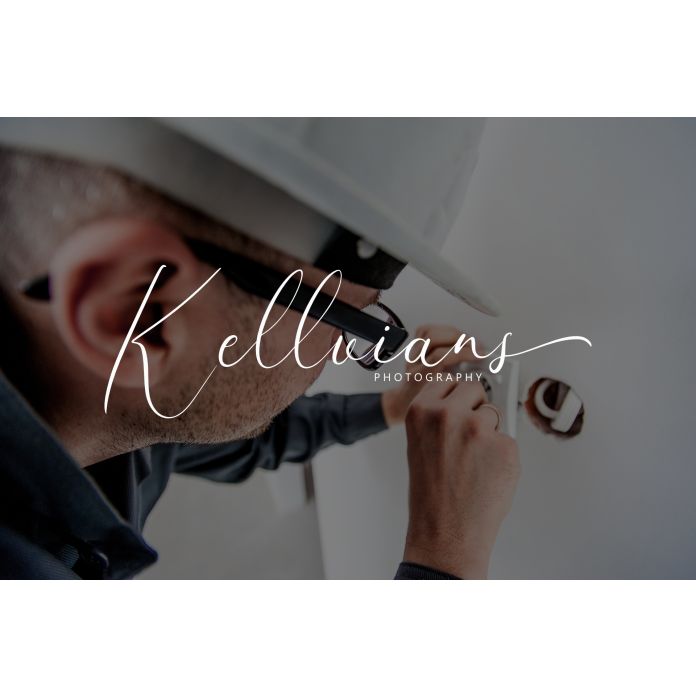
Discover the charm and elegance of Doverton, a handwritten font that brings a touch of sophistication and warmth to your designs. With its flowing lines and graceful curves, Doverton captures the essence of personal expression, making it ideal for a variety of creative projects.
Whether you’re designing invitations, branding materials, or social media graphics, Doverton’s unique style adds a personal touch that stands out. The font combines readability with artistic flair, ensuring your message is both clear and captivating.